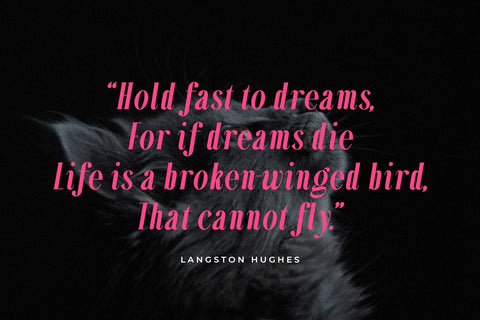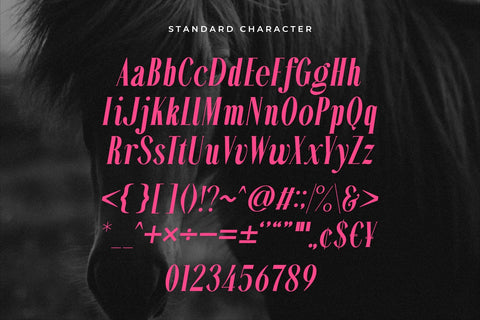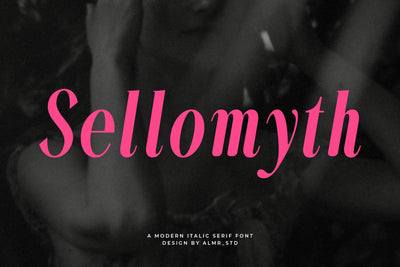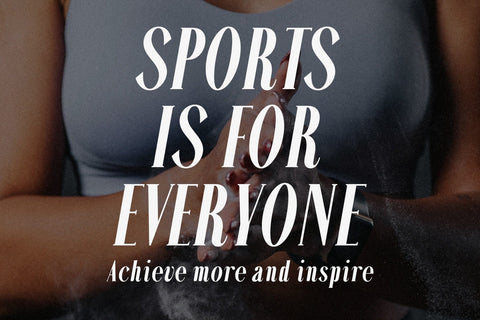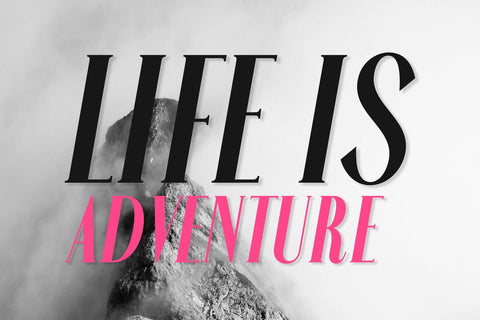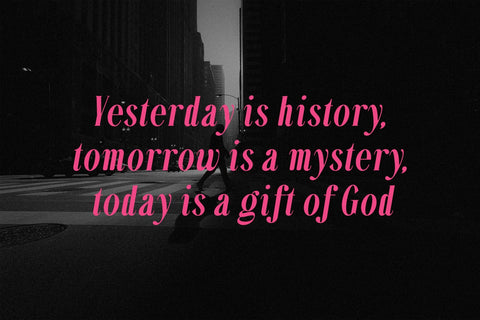
Sellomyth - Italic serif font
Introducing Sellomyth - Italic serif font. Sellomyth is a display, italic & retro serif font, This type of font is very suitable for your various needs such as branding projects, logos, social media posts, advertisements, labels, product packaging, photography, wedding designs, watermarks, invitation product designs, stationery, and any project.
FEATURES:
- Punctuation
- Numerial